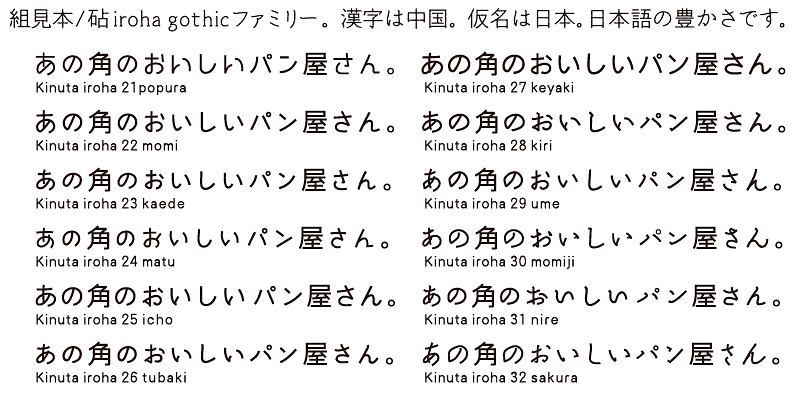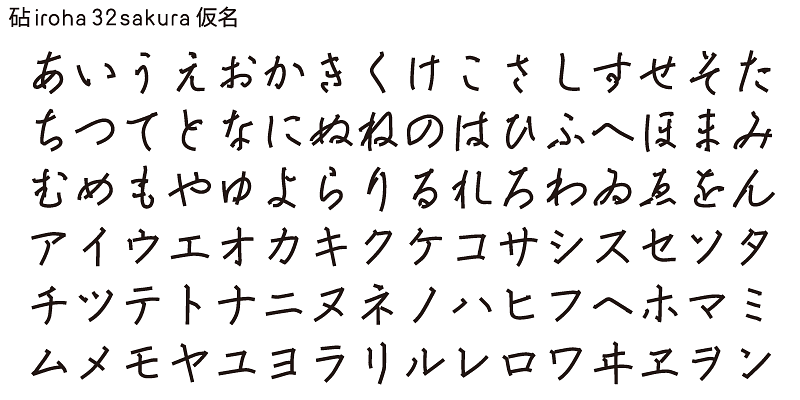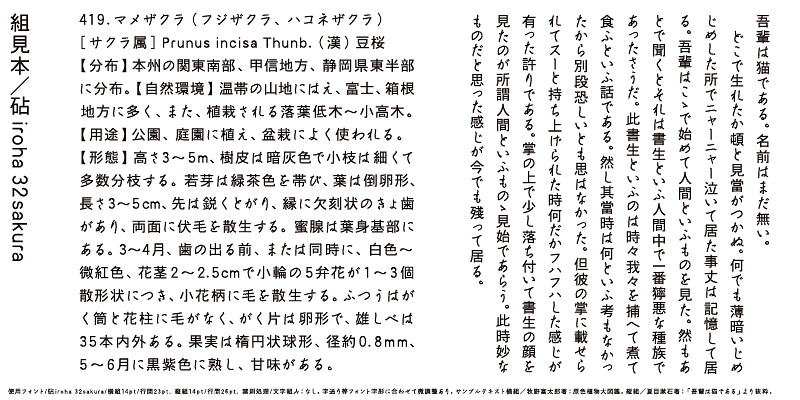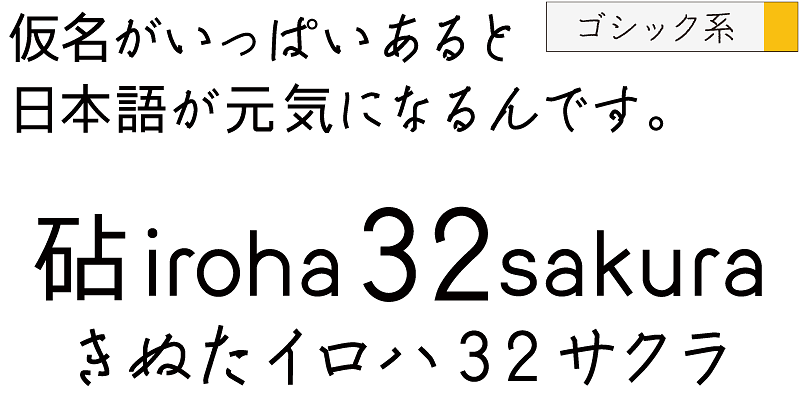
Iroha 32sakura shares the same design concept as Iroha 30momoji, but uses cursive handwriting for a sense of speed and a sharper visual effect.
The same Ideographic (kanji) characters are shared by all the Iroha variations. Kanji characters of Iroha are designed with linear strokes and simple structures. There are 12 kana variants.
One characteristic of the Japanese language is that it has kana syllabic characters. Kana characters were invented in Japan to represent sounds in Japanese and translate texts imported from China into Japanese. Kana characters are needed to create Japanese words and expressions from kanji/Chinese ideographic characters. While there may be ambiguities, these words and expressions exhibit the warmth and gentleness of the lives of people living in the small and densely populated land of Japan.
Kinuta Font Factory’s believes that kana characters are the origin of written words in Japanese, and we think that improving kana characters will make Japanese text more attractive. On average, 60% of Japanese text consists of kana characters – changing the shape of these characters changes the visual appearance of the text. The possibilities for typographic expression using simple, dynamic and curvilinear kana characters are vast, and the richness of Japanese text depends on kana characters. This is the reason why Kinuta Font Factory offers many variations of kana typefaces.